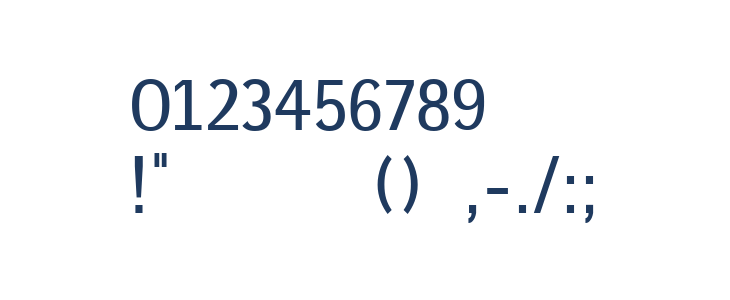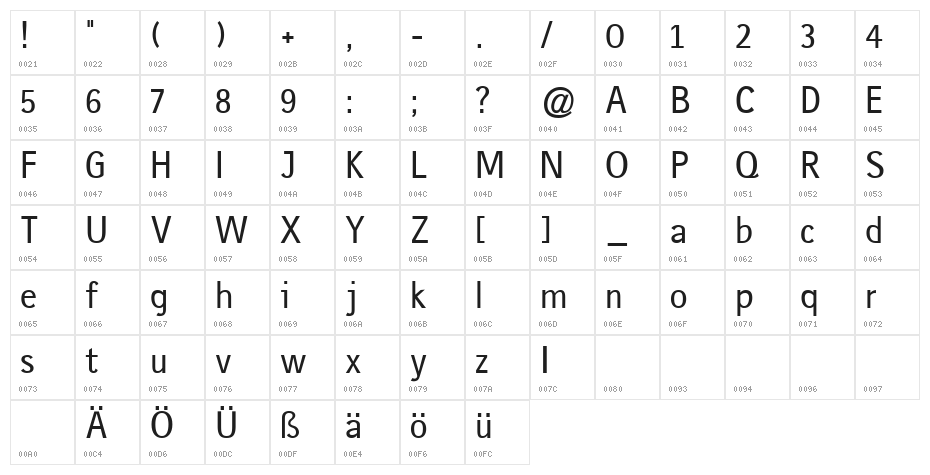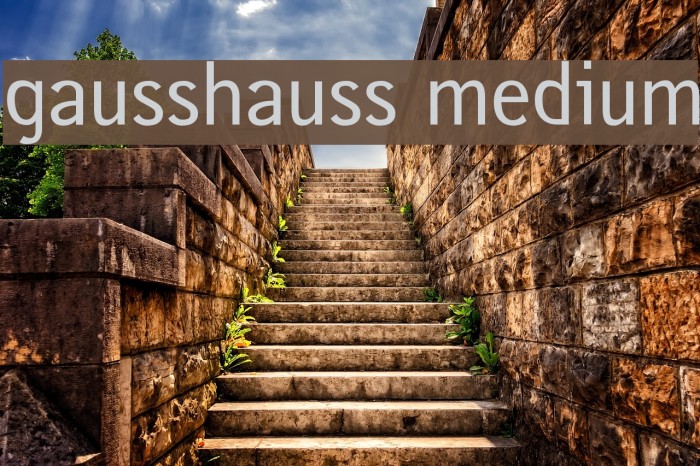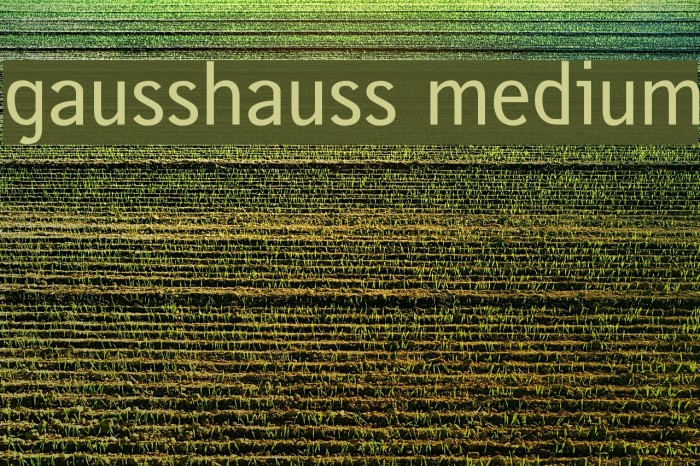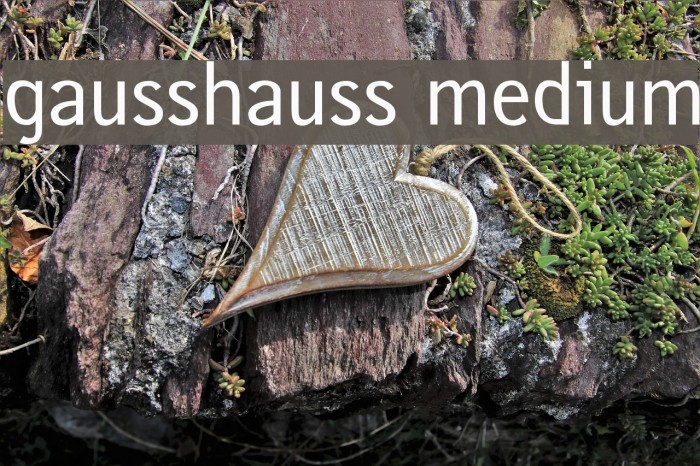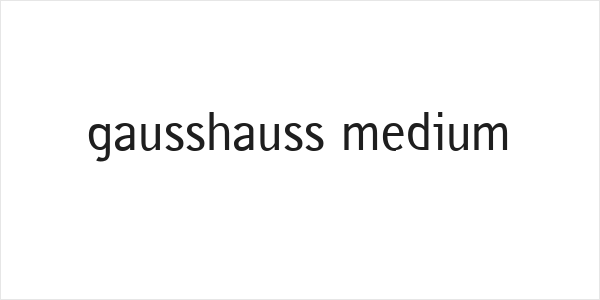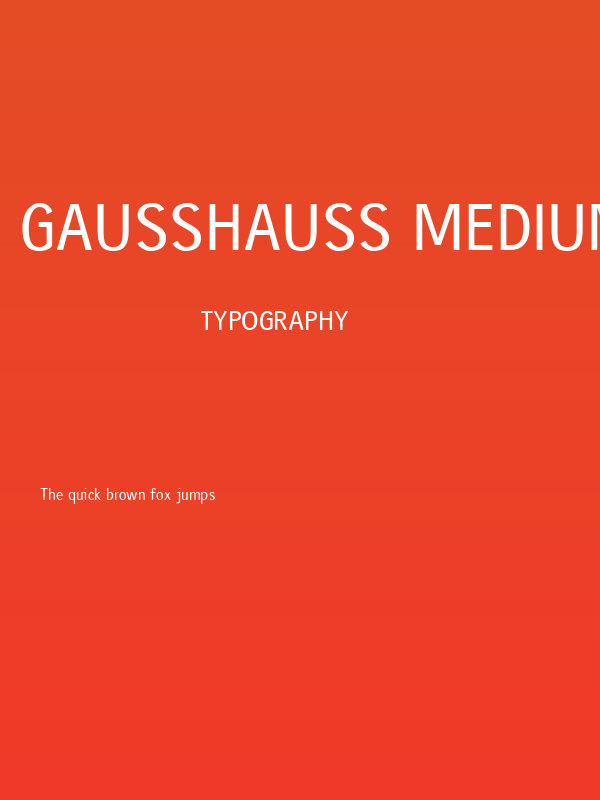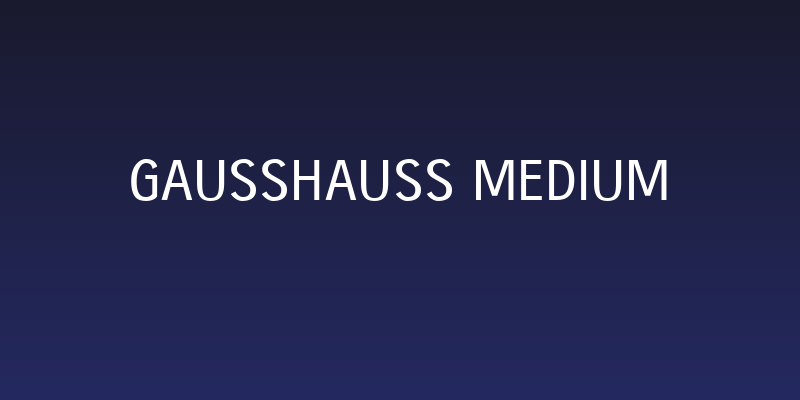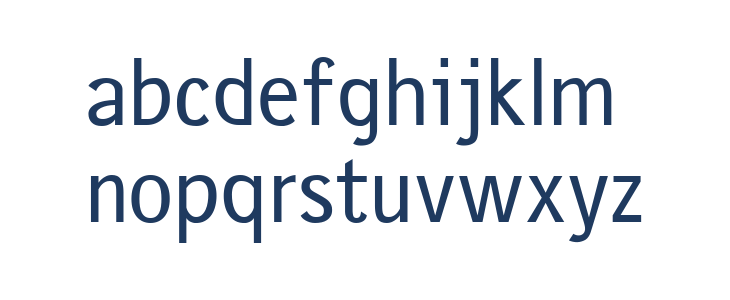
gausshauss medium Font
gausshauss medium Description
This font features a clean and modern sans-serif design with uniform stroke widths, providing a sleek and professional appearance. The characters are well-balanced, with a consistent height and width that enhances readability. The uppercase letters are bold and assertive, while the lowercase letters maintain a friendly and approachable feel. The numerals are clear and distinct, making them suitable for both digital and print media. Special characters are designed with simplicity and clarity in mind, ensuring they complement the overall aesthetic without distraction.